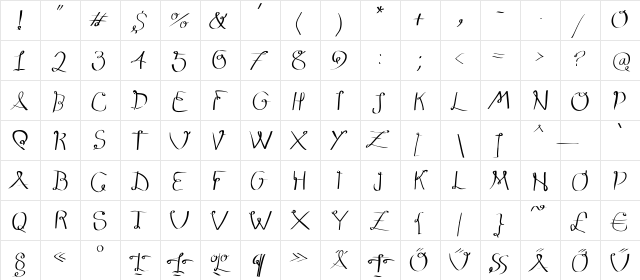
Loopings Regular Font Preview
Loopings Regular
Design Context for Loopings Typeface
Loopings is a composed and adaptable typeface that performs quietly and consistently across a wide range of design contexts.